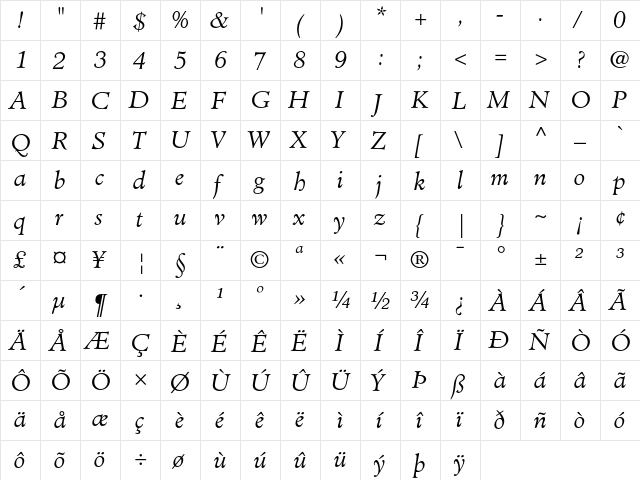
Minister Light Italic
Design Context for Minister Typeface
Minister is a composed and adaptable typeface that performs quietly and consistently across a wide range of design contexts. The dynamic lean of this cut emphasises speed and emphasis in any layout. The delicate stroke weight brings airiness and refinement to layouts.
Pro Tip: Try Minister for annotation and caption copy alongside an upright companion — the contrast in angle creates a dynamic but ordered typographic system.